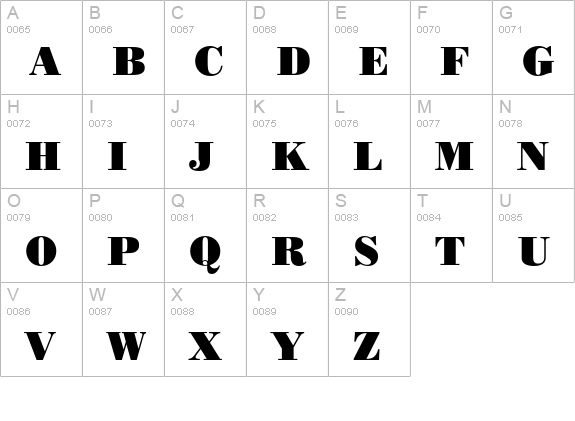
Poster Bodoni Font Details
Poster Bodoni is a classic and elegant serif font that exudes sophistication and style. With its high contrast between thick and thin strokes, Poster Bodoni commands attention and is perfect for creating eye-catching headlines and titles. This timeless font carries a sense of refinement and luxury, making it a popular choice for projects that require a touch of elegance. The best part is that Poster Bodoni is available for free! You can easily download this exquisite font from FontsMarket.com and elevate your designs with its timeless beauty and grace. Whether you're working on a poster, invitation, logo, or any other creative project, Poster Bodoni is sure to make a lasting impression with its bold and striking presence. Don't miss out on this amazing opportunity to add a touch of class to your designs with the free Poster Bodoni font.